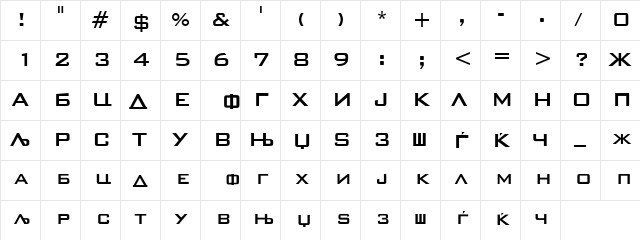
X_BankGothicBT Medium
Design Context for X_BankGothicBT Typeface
X_BankGothicBT takes a clean, functional approach — its unadorned letterforms prioritise legibility and work reliably across screen and print environments.